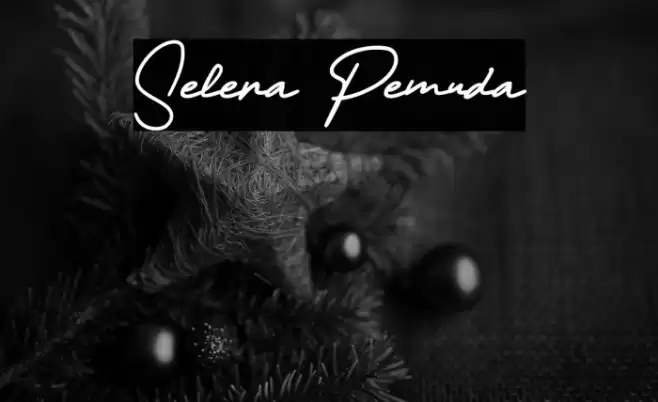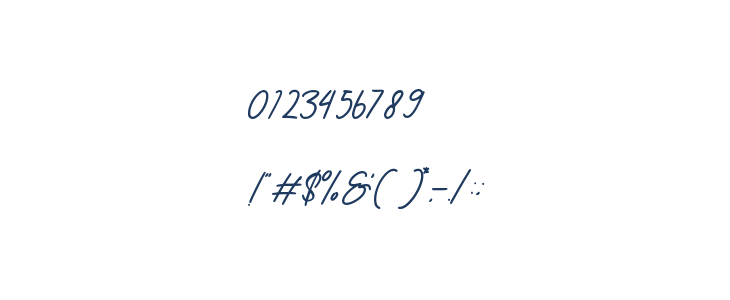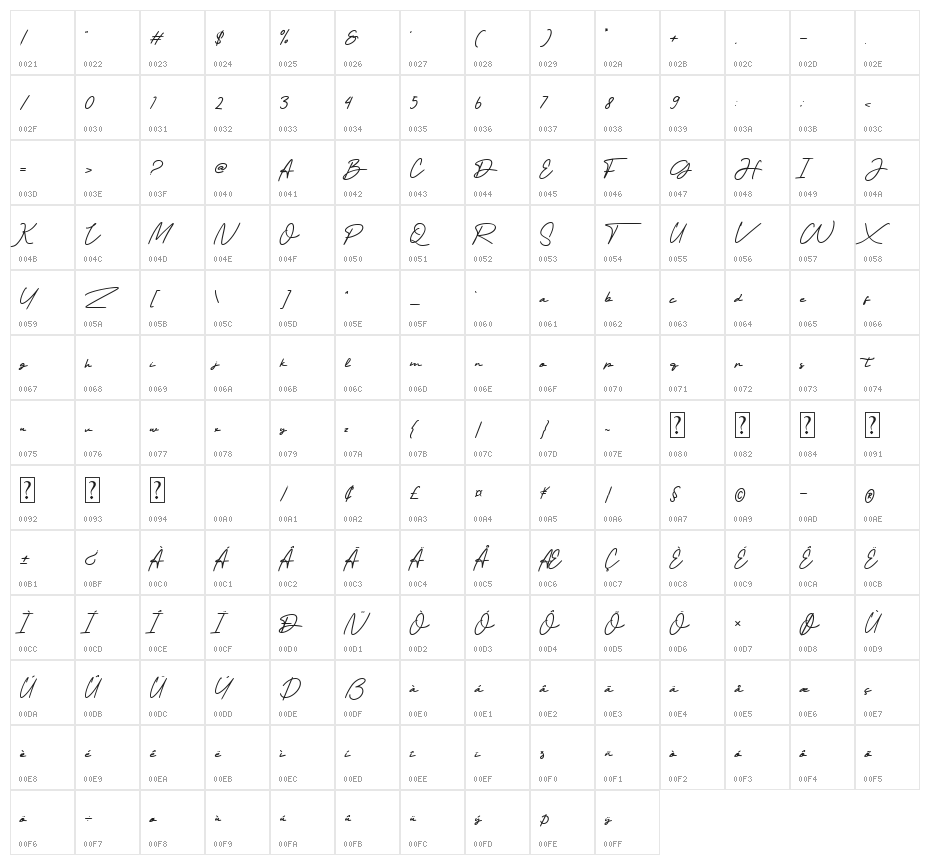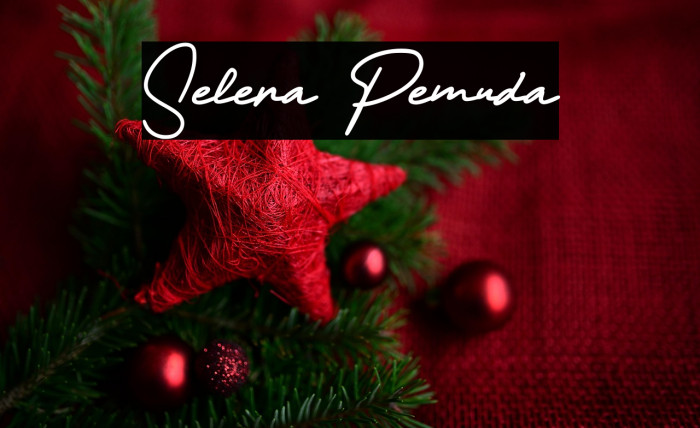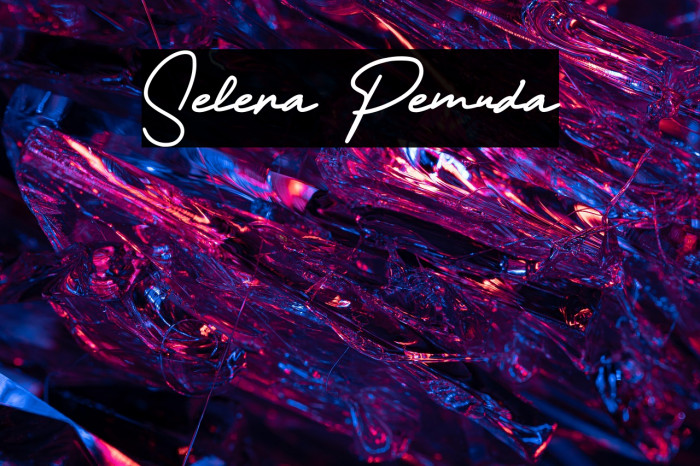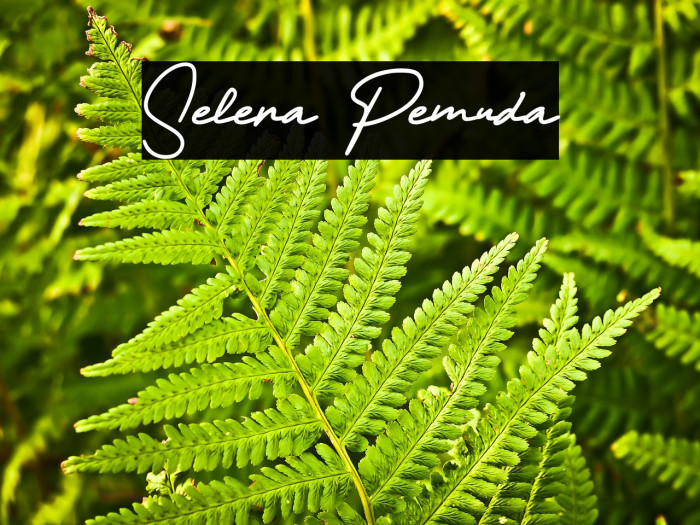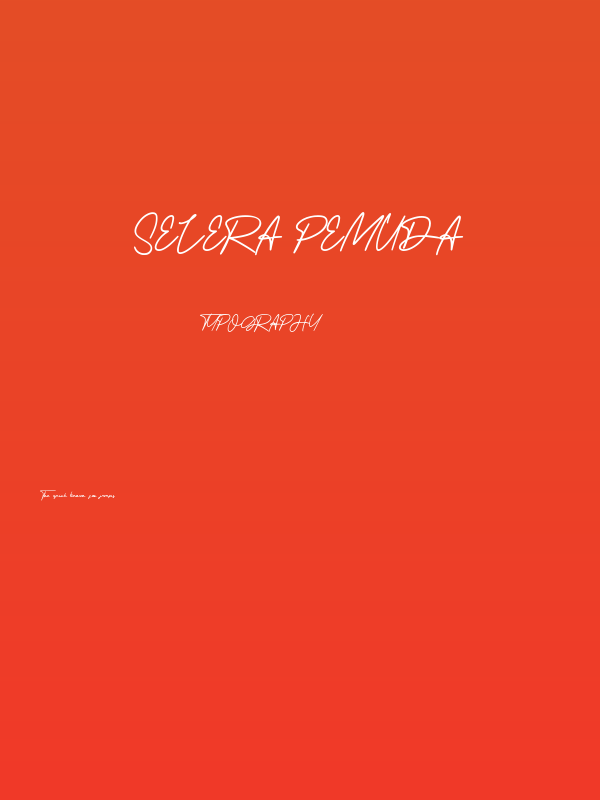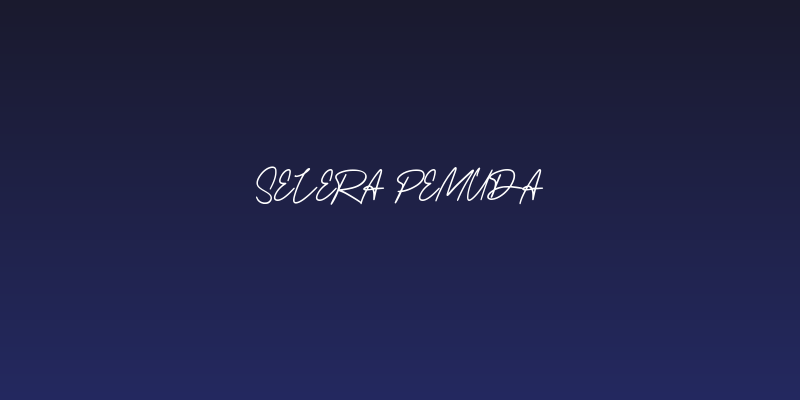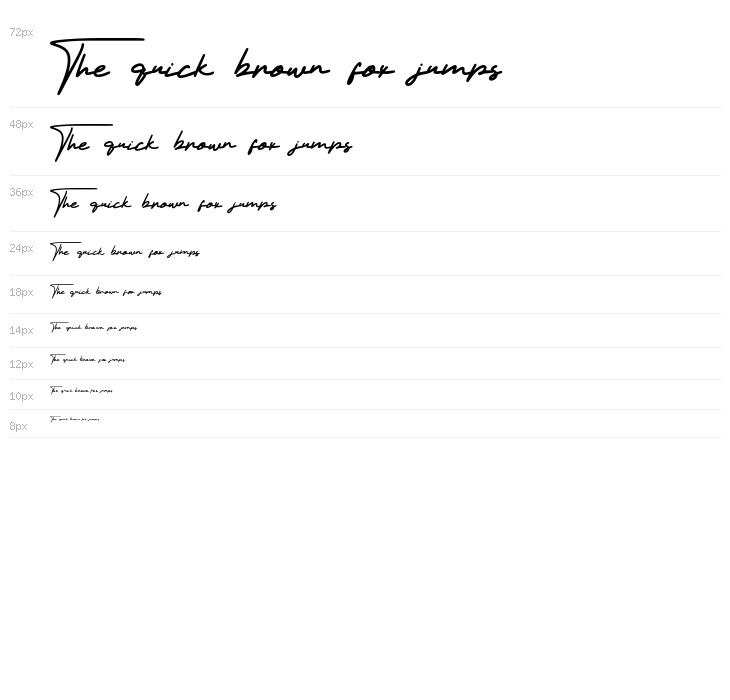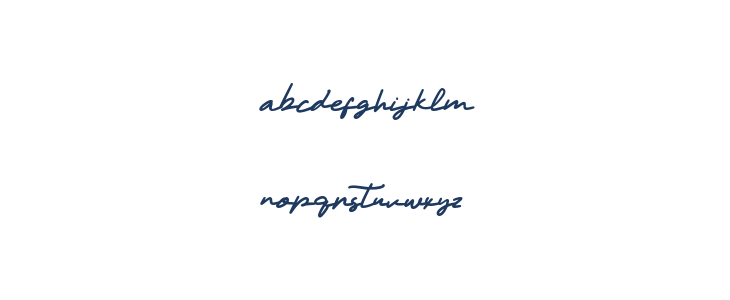
Selera Pemuda Font
Selera Pemuda Description
This font features a flowing, cursive style that mimics elegant handwriting. The letters are interconnected, creating a seamless and fluid appearance. The uppercase letters are bold and prominent, while the lowercase letters maintain a consistent, graceful flow. The numerals and special characters are designed to match the overall cursive theme, adding a touch of sophistication. The font's design is both stylish and legible, making it suitable for a variety of creative applications.
A cursive, elegant font with interconnected letters and a stylish flow from Regular fonts.
- Proposed Projects: Ideal for wedding invitations, greeting cards, personal branding, and decorative quotes.
- Character Spacing: Tight
- Overall Style: Elegant
- Use Case: Logos, Invitations, Decorative text